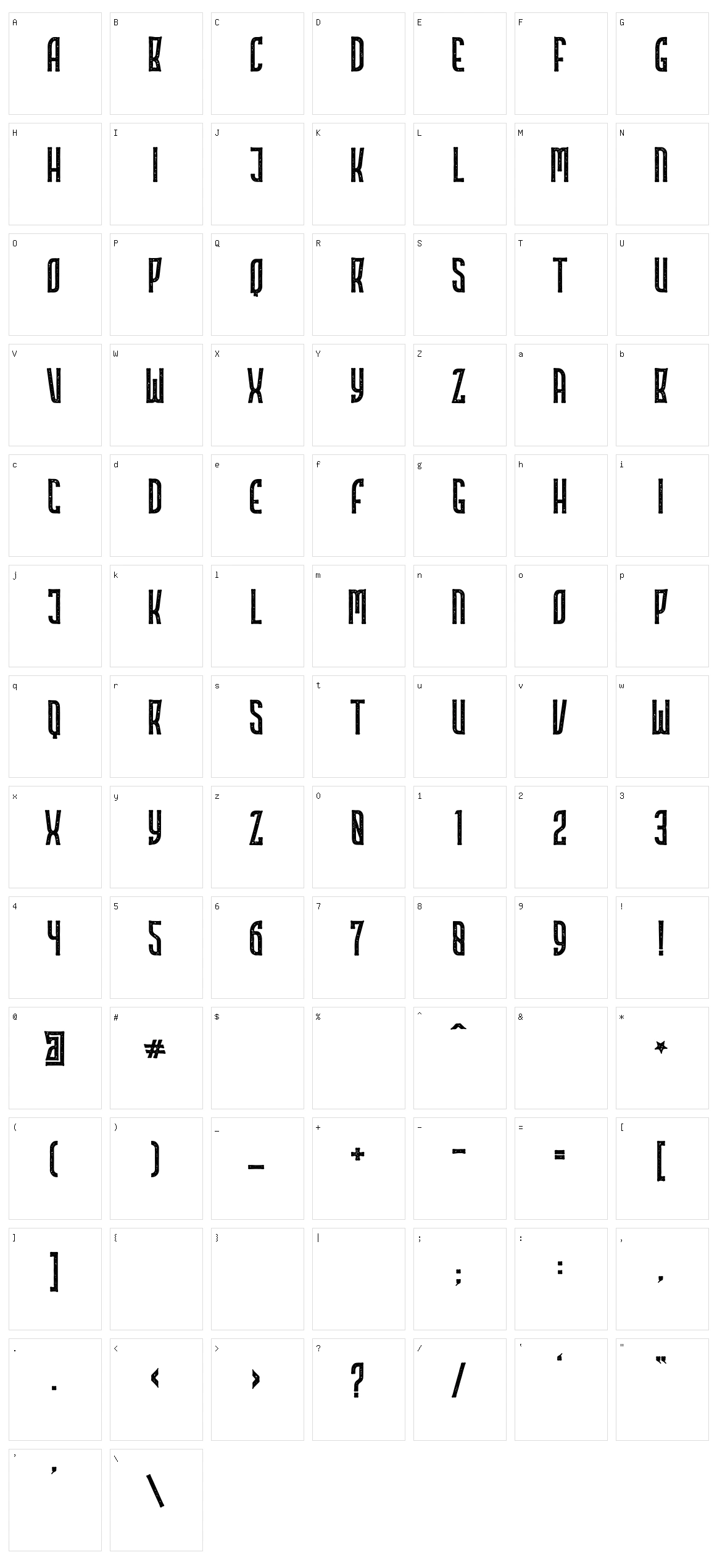
The free font Highstories Stamp is carefully designed by mlkwsn, showcasing a thoughtful balance of creativity and usability and falls under the Eroded font style. When you download the ZIP file, it contains only 207.61 KB of font files, making it lightweight and quick to download. Please review the license details below to understand permitted usage and distribution rights. If license information is not available, we recommend using this font for personal projects only or contacting the author directly for commercial usage permissions.